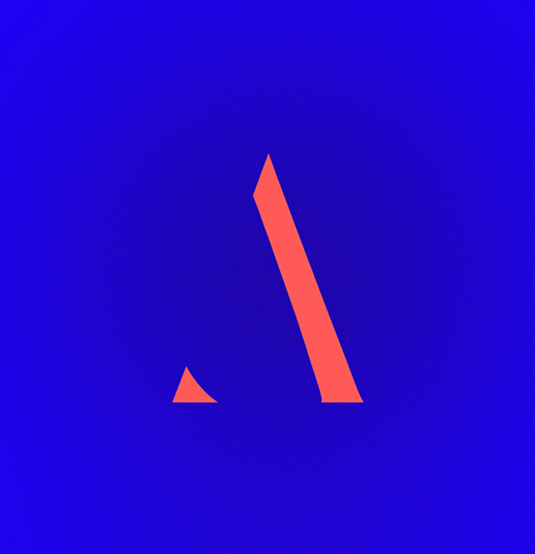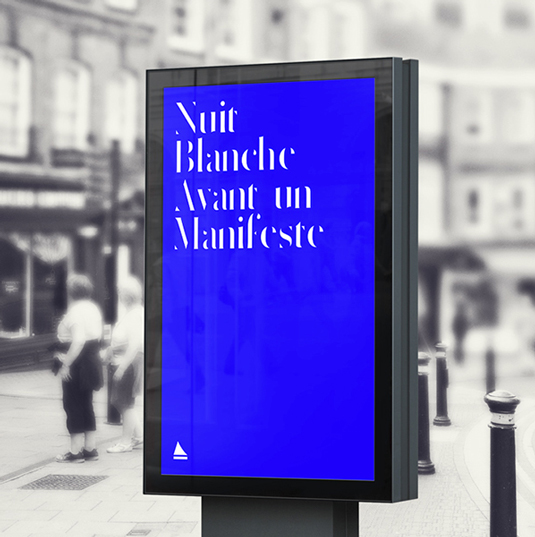
Font of the day: Delicate
Delicate from FAAK&PAAT Studio
Today's typeface of choice is Delicate from the team at graphic design studio FAAK&PAAT in Bordeaux. The unusual, eye-catching design is available in three versions; rounded, bold and strict, and is free for both personal and commercial use.